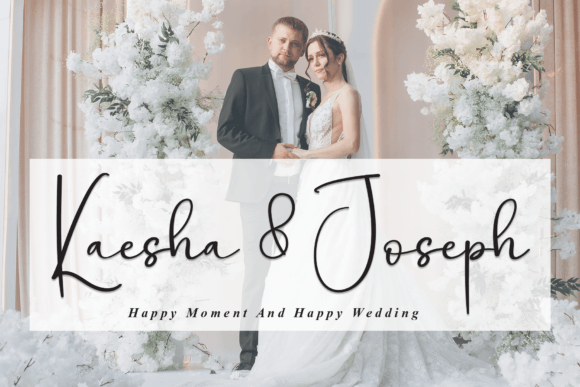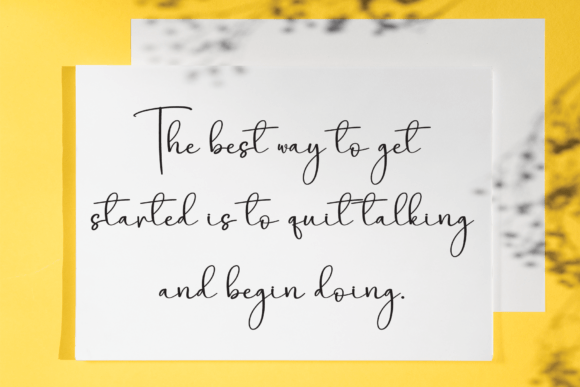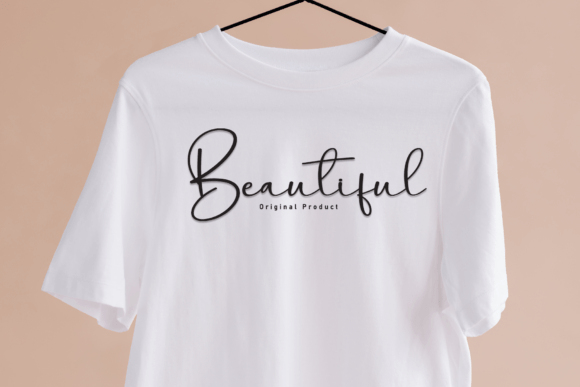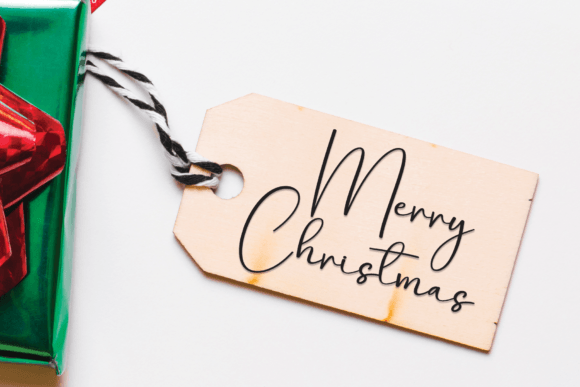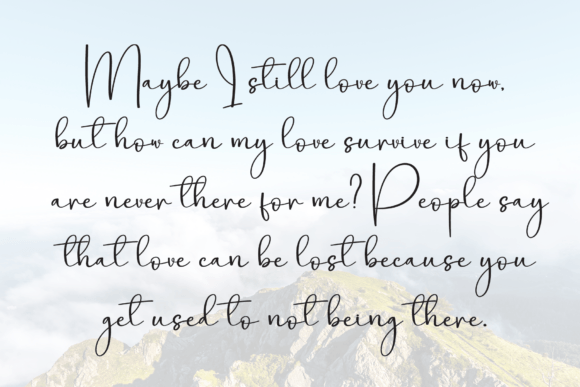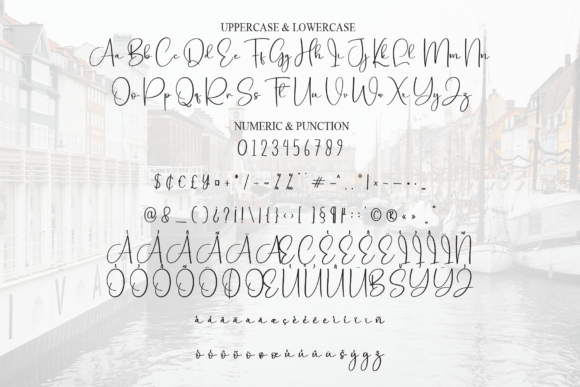
Discover the Elegance of Amsterdam Font: Elevate Your Designs with This Stylish Script Font
Are you looking for a font that adds a touch of sophistication and elegance to your designs? Look no further than the Amsterdam Font. This beautiful script font is designed to mimic the flowing curves of handwriting, making it perfect for a variety of creative projects. In this article, we’ll explore the features and benefits of the Amsterdam Font, and show you how to make the most of this versatile and stylish font.
What is Amsterdam Font?
Amsterdam Font is a stylish and flowing script font that looks like beautiful handwriting. Its elegant curves and smooth lines make it perfect for invitations, logos, and creative designs. Simple yet eye-catching, this font is sure to elevate your designs and add a touch of sophistication. Whether you’re a designer, crafter, or DIY enthusiast, Amsterdam Font is a great choice for anyone looking to add some elegance to their projects.
Features of Amsterdam Font
So, what makes Amsterdam Font so special? Here are just a few of its key features:
• Elegant curves and smooth lines: Amsterdam Font features beautiful, flowing curves and smooth lines that give it a natural, hand-written feel.
• Perfect for invitations and logos: The elegant and sophisticated design of Amsterdam Font makes it perfect for use in invitations, logos, and other creative designs.
• Simple yet eye-catching: Despite its simple design, Amsterdam Font is sure to grab attention and add a touch of elegance to your projects.
• Versatile: Amsterdam Font can be used in a variety of contexts, from formal events to casual crafting projects.
Benefits of Using Amsterdam Font
So, why should you choose Amsterdam Font for your next project? Here are just a few benefits of using this stylish script font:
• Adds elegance and sophistication: Amsterdam Font is sure to add a touch of elegance and sophistication to your designs, making it perfect for formal events and special occasions.
• Easy to read: Despite its flowing curves and script design, Amsterdam Font is easy to read and understand, making it perfect for use in body text and other applications.
• Customizable: Amsterdam Font can be customized to fit your needs, allowing you to adjust the size, color, and style to match your project’s requirements.
• Time-saving: With Amsterdam Font, you can create beautiful, professional-looking designs in no time, saving you time and effort.
Using Amsterdam Font in Your Designs
So, how can you use Amsterdam Font in your designs? Here are a few ideas to get you started:
• Invitations: Use Amsterdam Font to create beautiful, elegant invitations for weddings, parties, and other special occasions.
• Logos: Amsterdam Font is perfect for use in logos, adding a touch of sophistication and elegance to your brand’s identity.
• Creative designs: Use Amsterdam Font to add a touch of elegance to your creative designs, from scrapbooking to card making.
• Signage: Amsterdam Font can be used in signage, adding a touch of sophistication and elegance to your storefront, restaurant, or event.
Tips and Tricks for Working with Amsterdam Font
Here are a few tips and tricks to help you get the most out of Amsterdam Font:
• Experiment with different sizes and colors: Amsterdam Font can be used in a variety of sizes and colors, so don’t be afraid to experiment and find the perfect combination for your project.
• Pair with other fonts: Amsterdam Font can be paired with other fonts to create a unique and interesting design.
• Use in combination with images: Amsterdam Font can be used in combination with images to create a beautiful and eye-catching design.
In conclusion, Amsterdam Font is a stylish and elegant script font that is perfect for adding a touch of sophistication to your designs. With its flowing curves and smooth lines, this font is sure to elevate your projects and make them stand out. Whether you’re a designer, crafter, or DIY enthusiast, Amsterdam Font is a great choice for anyone looking to add some elegance to their designs.